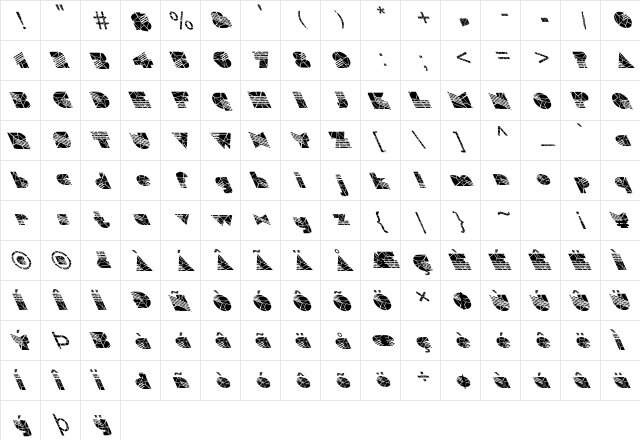
FZ UNIQUE 11 CRACKED LEFTY Normal
Design Context for FZ UNIQUE 11 CRACKED LEFTY Typeface
FZ UNIQUE 11 CRACKED LEFTY is a composed and adaptable typeface that performs quietly and consistently across a wide range of design contexts.